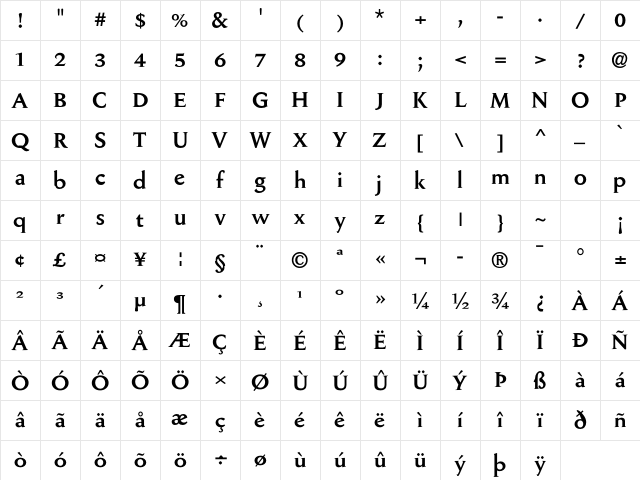
Steinbeck Gras
Style: Gras
Steinbeck Family
Complete Steinbeck Gras glyph index. Displaying only characters natively supported by Steinbeck Gras font.
Design Context for Steinbeck
Steinbeck is a composed and adaptable typeface that performs quietly and consistently across a wide range of design contexts.